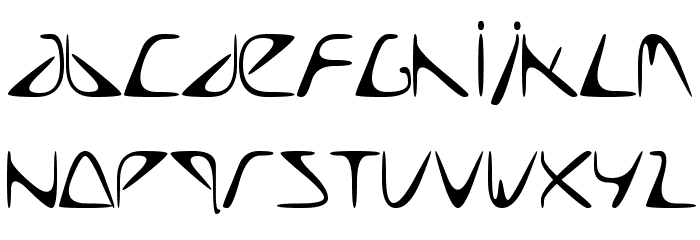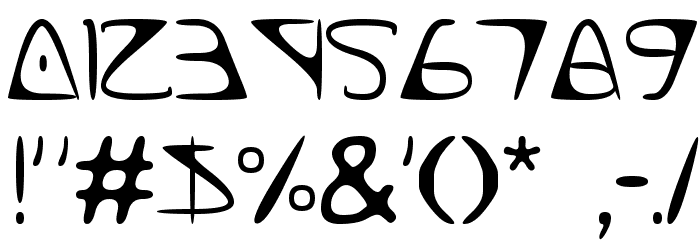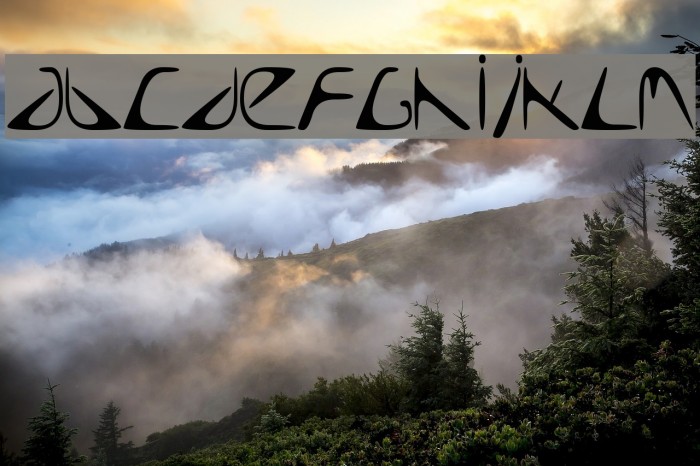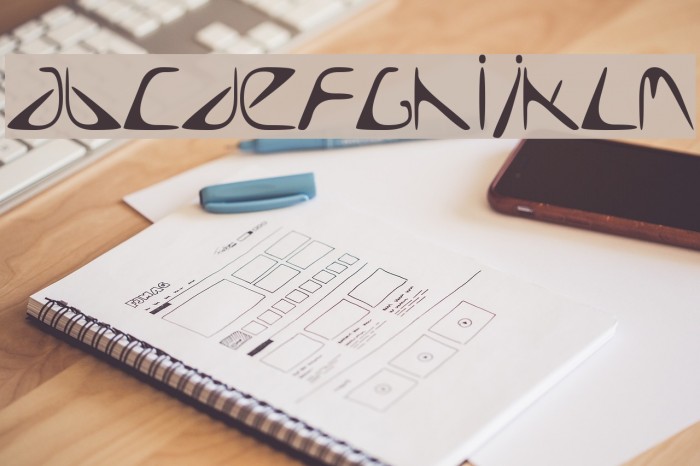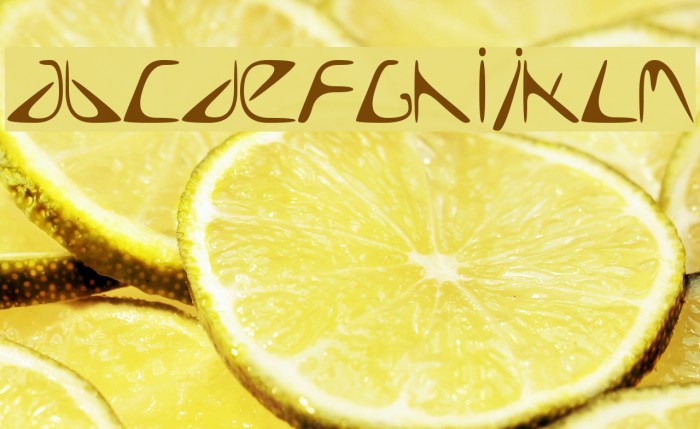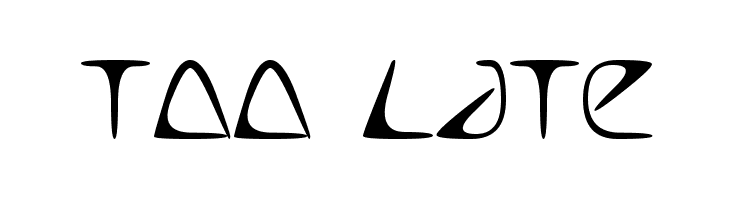
Too Late Font
This font features a unique and artistic design with a futuristic flair. The characters are stylized with sharp angles and smooth curves, creating a dynamic and fluid appearance. The uppercase and lowercase letters maintain a consistent style, with a playful yet sophisticated look. The numbers and special characters follow the same design principles, ensuring a cohesive visual experience. The font's distinctiveness makes it stand out, ideal for creative projects that require a modern and edgy touch.
A futuristic and artistic font with sharp angles and smooth curves.
- Proposed Projects: Ideal for branding, album covers, sci-fi themed projects, and modern art posters.
- Use Case: Logos, Posters, Creative Headlines